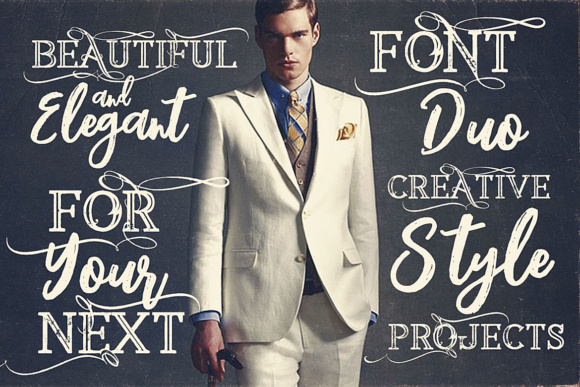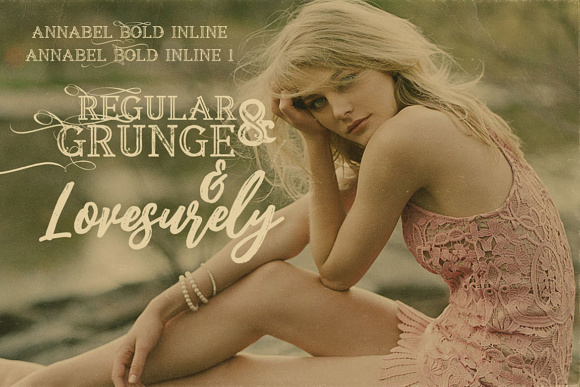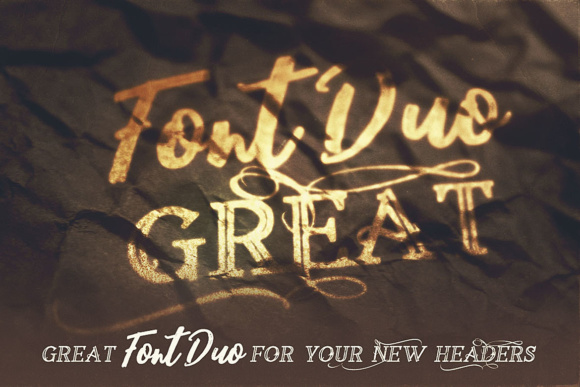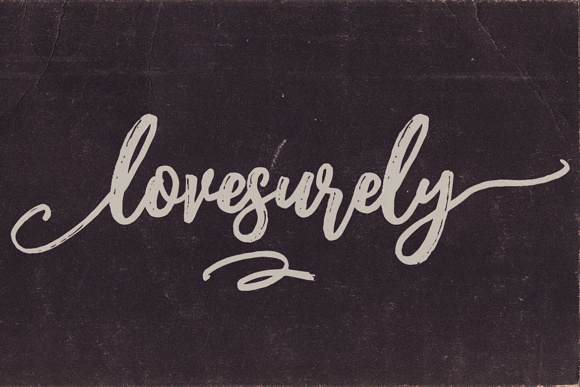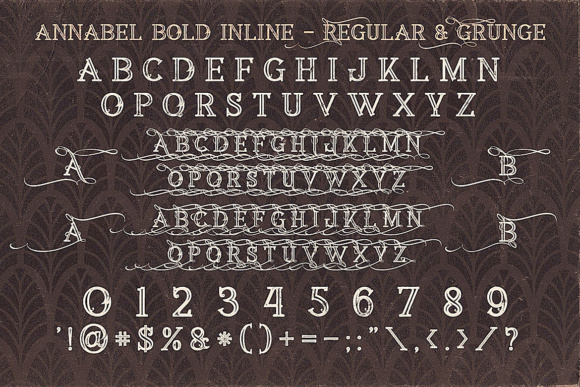
Lovesurely Font
Lovesurely is a gorgeous font duo, perfect for use in vintage or retro designs! This font duo, Annabel and Lovesurely, works well when combined, but can be used separately for less intensely retro appeal.